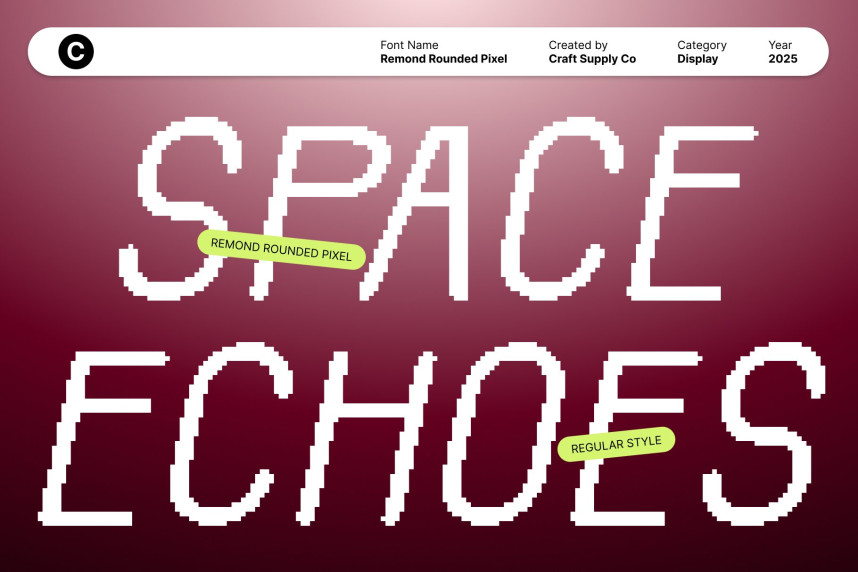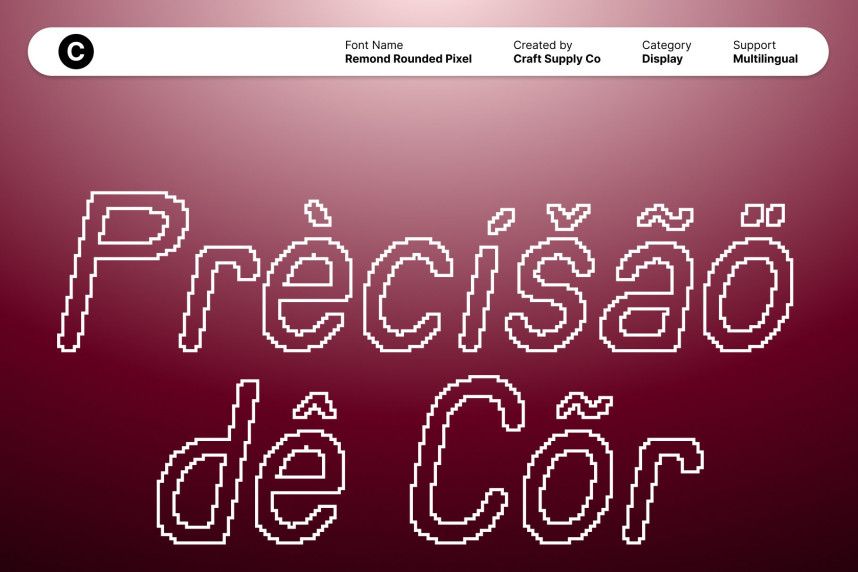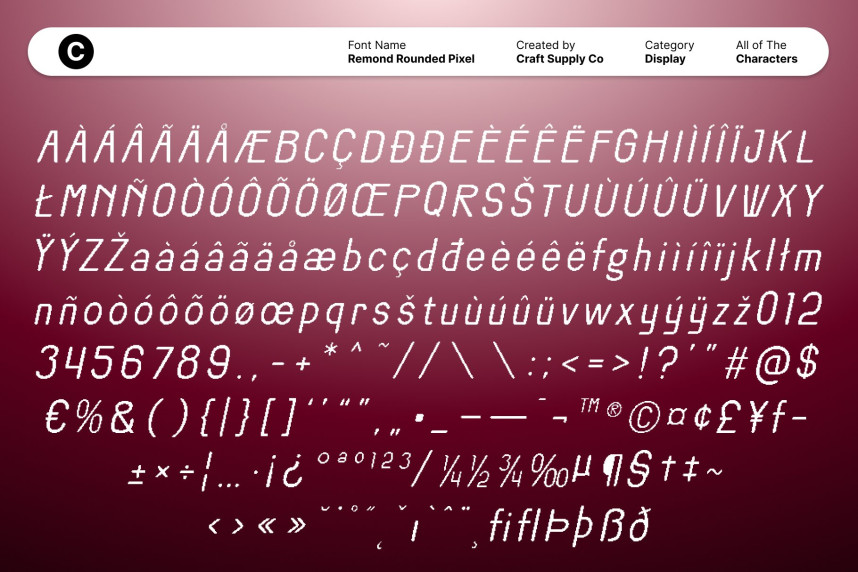
Remond Rounded Pixel Font
Remond Rounded Pixel Font – Retro Display Font with Pixel Art Charm Nostalgic Pixel Art Meets Modern Digital Creativity. This is a retro-inspired display font that combines the playful charm of classic pixel art with contemporary design sensibilities. Its rounded, approachable forms create a friendly and engaging aesthetic, making it ideal for designers looking to evoke nostalgia while embracing modern digital creativity.